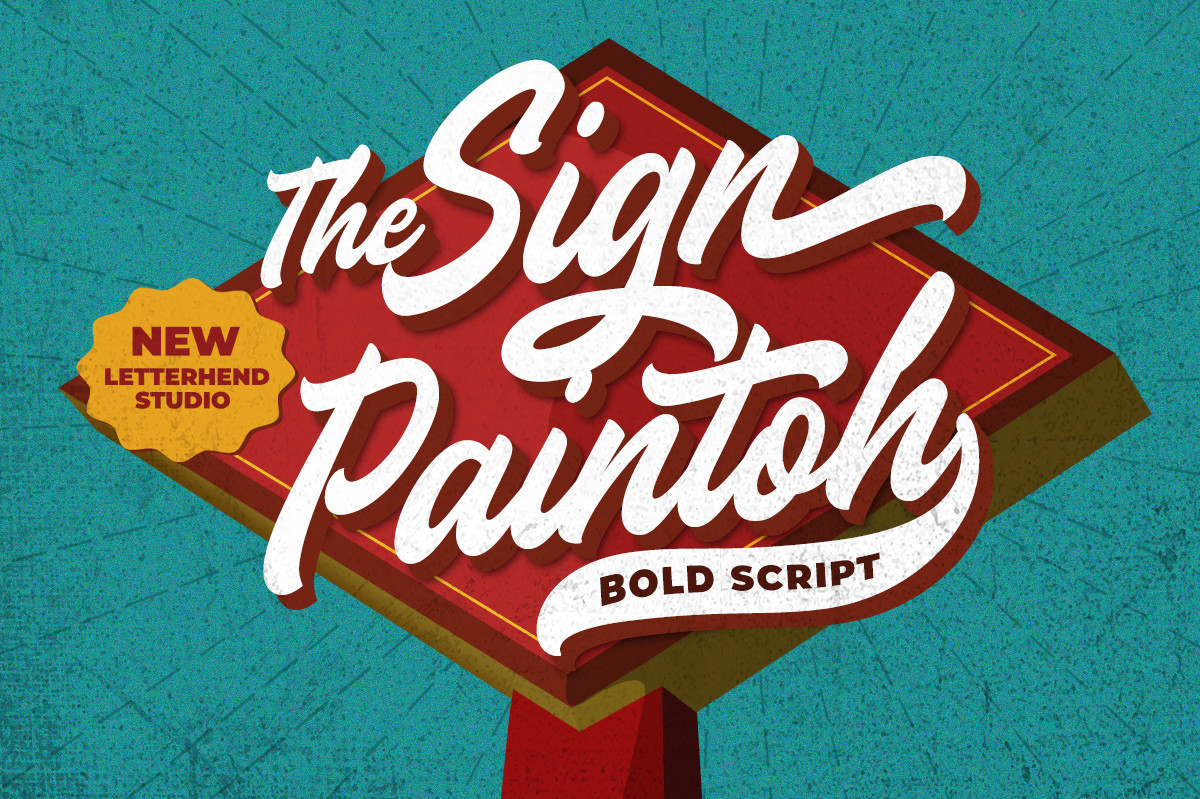
Sign Paintoh Font
Sign Paintoh Font is perfect for vintage sign painting workshop branding, classic americana restaurant signage, hand-painted business storefront graphics, traditional barbershop pole designs, retro diner advertising materials, old-school truck lettering projects, heritage craft business logos, vintage-style billboard graphics, classic roadside attraction signage, and authentic hand-lettered merchandise designs. This artisanal typeface brings traditional craftsmanship to sign painting services, vintage restoration businesses, classic americana brands, traditional craft workshops, and heritage preservation organizations.
Sign Paintoh Font is exciting because it captures the authentic artistry and timeless craftsmanship of traditional sign painting through its masterfully hand-brushed letterforms that honor the golden age of American signage. The font features characters with genuine brush stroke textures and classic proportions that evoke the steady hand of master sign painters, the pride of traditional craftsmanship, and the enduring beauty of hand-painted commercial art. Its distinctive construction demonstrates artisanal mastery with carefully preserved brush marks that create an immediate sense of authentic craftsmanship and traditional skill. The font's artisanal presence and sign painting authenticity make it perfect for brands seeking to communicate traditional quality, handcrafted excellence, and the timeless appeal of authentic American sign painting in their visual communications.
Sign Paintoh Font family includes various artisanal styles: Light Brush, Regular Brush, Bold Brush, Heavy Brush, Classic Brush, Vintage Brush, Traditional Brush, Weathered Brush, Condensed Brush, Extended Brush, Heritage Brush, and Americana variants. Each family member maintains the core sign painting DNA while offering different brush weights for diverse traditional design applications. The comprehensive font collection ensures consistent artisanal branding across heritage campaigns, traditional businesses, and craft-focused communication materials.
Sign Paintoh Font Free Download provides designers with an exceptional tool for creating authentic and traditionally crafted visual communications. This remarkable typeface seamlessly blends traditional sign painting techniques with contemporary functionality, making it ideal for both digital heritage platforms and premium hand-crafted themed print materials. The font's carefully preserved brush details and artisanal rhythm create memorable visual experiences that resonate with audiences seeking authentic craftsmanship, traditional quality, and genuine American sign painting heritage.
Whether you're creating traditional craft brand identities, designing heritage marketing materials, developing artisanal website headers, or crafting authentic promotional campaigns, Sign Paintoh Font delivers outstanding traditional appeal and sign painting authenticity. The font's distinctive handcrafted personality excels in heritage logos, artisanal packaging design, traditional applications, and craft projects where authentic sign painting and traditional craftsmanship are essential.